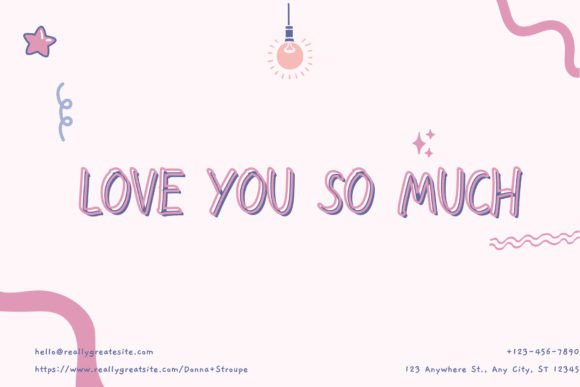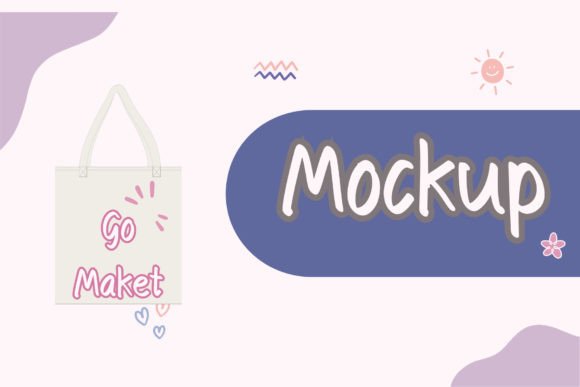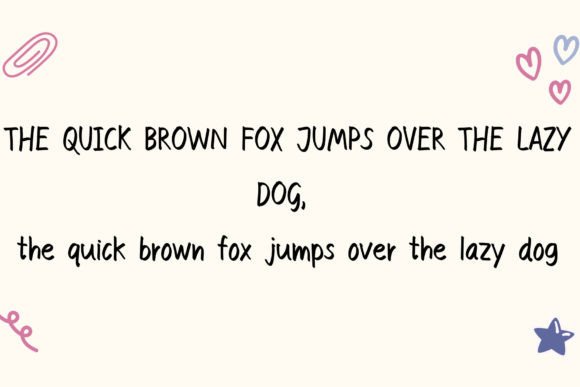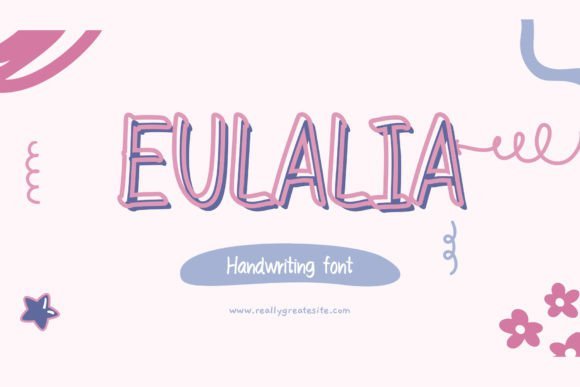
Introduction to Eulalia Font
EULALIA is a cute, handwritten font.
This playful sans-serif will look so good on your invites, cards, logos, and any other fun projects you are working on .
Eulalia Font offers exceptional quality and versatility, making it a valuable addition to your design toolkit. Whether you’re creating for personal projects or commercial use, Eulalia Font delivers professional results.